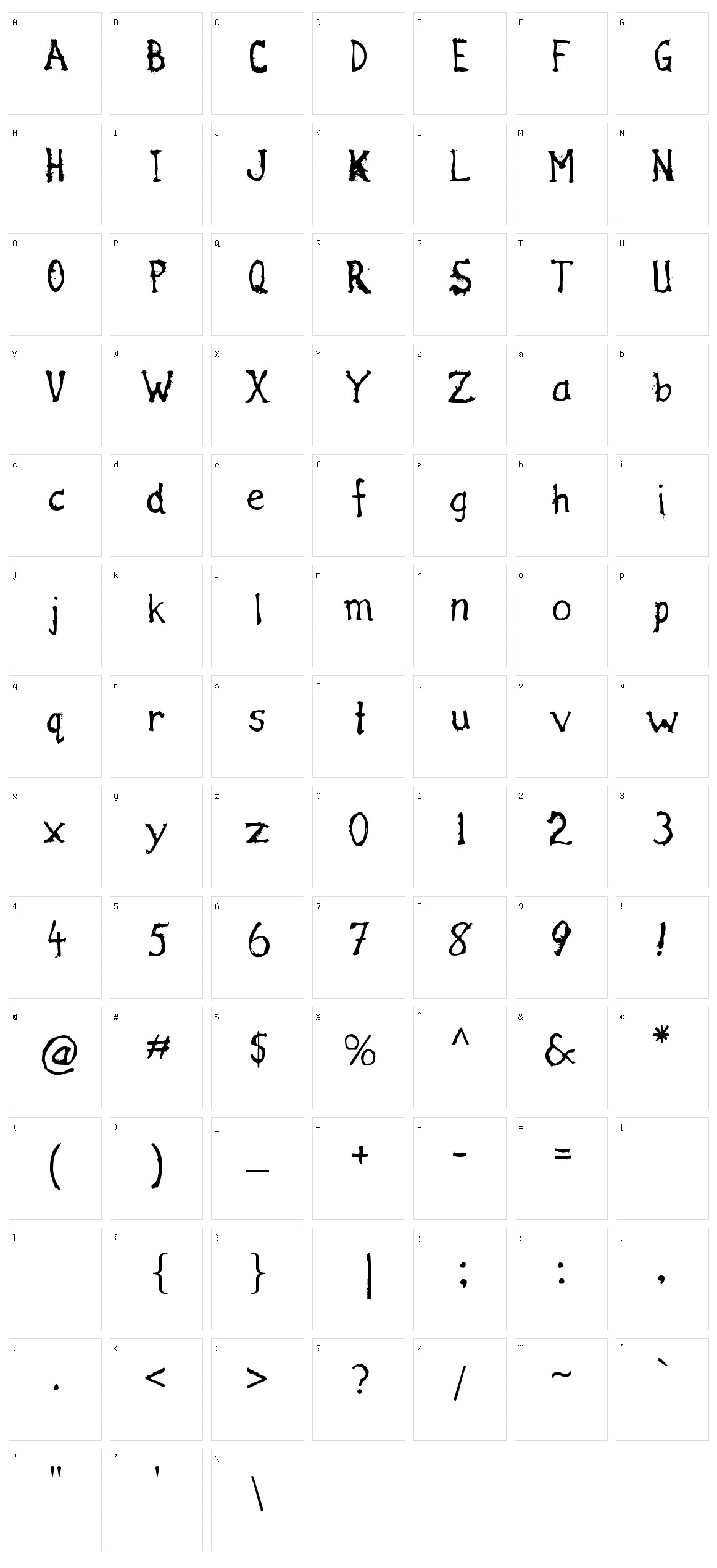
The free font Haliwax is carefully designed by Kirk Shelton, showcasing a thoughtful balance of creativity and usability and falls under the Eroded font style. When you download the ZIP file, it contains only 91.7 KB of font files, making it lightweight and quick to download. Please review the license details below to understand permitted usage and distribution rights. If license information is not available, we recommend using this font for personal projects only or contacting the author directly for commercial usage permissions.